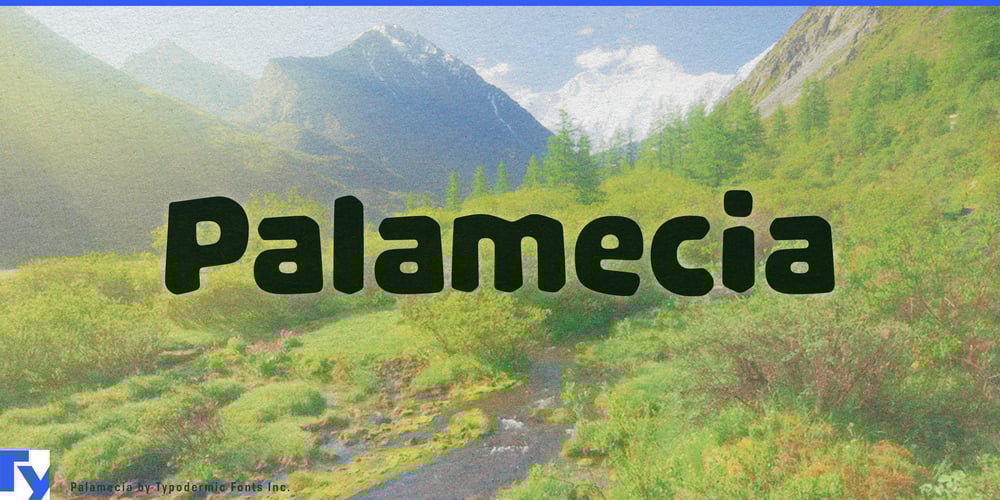
Palamecia Font Family was designed by Ray Larabie and published by Typodermic. Palamecia contains 1 styles and family package options. Palamecia: where organic design meets digital resilience. This Typodermic Fonts creation is a testament to the evolution of typography in the age of diverse display technologies.At first glance, Palamecia’s playful, almost cartoon-like appearance belies its sophisticated engineering. But look closer, and you’ll see a typeface forged to thrive in the challenging landscape of modern interfaces. Each character is a survivor, designed to maintain its integrity across a gauntlet of pixel densities and resolutions. Palamecia’s unique genesis sets it apart from its peers. Born not from the fluid strokes of a pen, but sculpted from digital clay, each letter is the result of meticulous chiseling and chipping. This unconventional approach yields forms that are both rugged and refined—letters that look as if they’ve been weathered by digital winds yet remain crisp and legible.In user interfaces, Palamecia truly shines. Its ability to pierce through the fog of varying display qualities makes it an invaluable tool for designers grappling with the challenges of responsive design. From high-resolution retina displays to low-density screens, Palamecia stands its ground, ensuring your message remains clear and impactful. But Palamecia is more than just a workhorse for UI/UX designers. Its organic, slightly whimsical character lends itself to a wide range of applications. In branding for tech startups, it communicates innovation with a human touch. In children’s educational apps, it brings a friendly, approachable feel without sacrificing legibility.Moreover, Palamecia speaks a multitude of languages. Supporting a vast array of Latin-based European writing systems, from Afrikaans to Zulu, it ensures your designs can traverse linguistic boundaries without losing their distinctive character. Palamecia is a bridge between the organic and the digital, the playful and the precise. It’s for designers who understand that in the digital age, true versatility comes not just from aesthetic appeal, but from the ability to adapt and thrive across diverse digital ecosystems.Ready to infuse your designs with organic resilience? Get Palamecia today. Because in a world of ever-changing displays, your typography should be a constant—not a compromise.